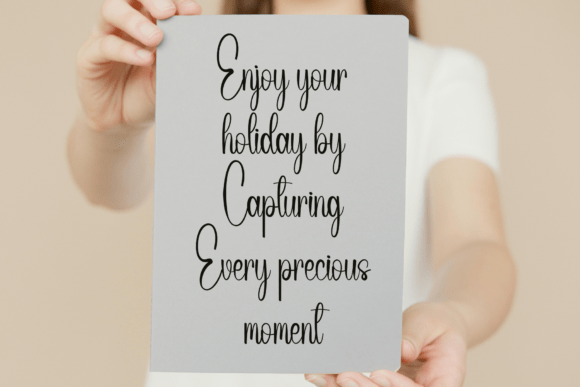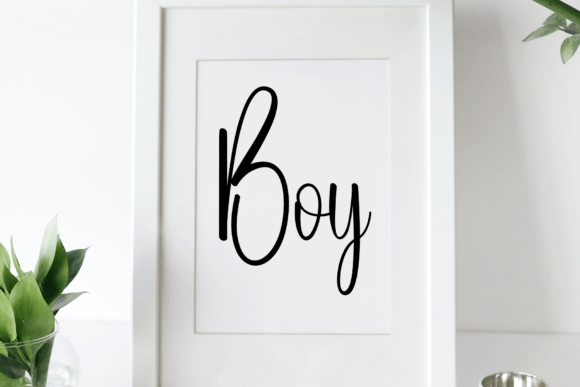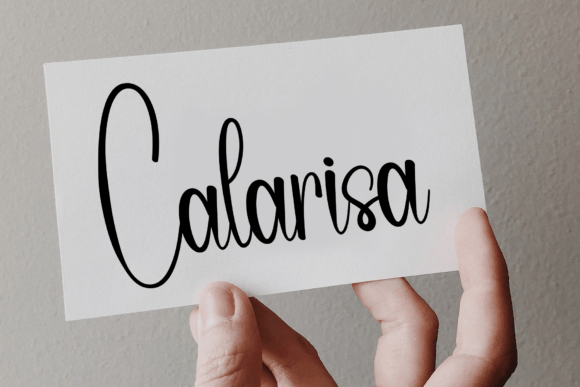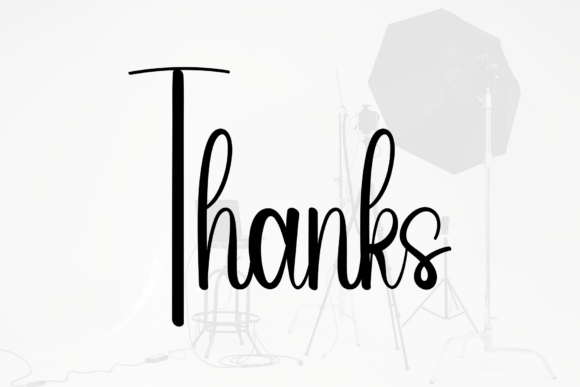
Discover the Perfect Script for Your Next Design Project
As a designer, you’ve probably found yourself staring at a blank canvas, searching for the perfect font to bring your vision to life. It’s that moment of frustration and excitement when you stumble upon something that just feels right. For me, it was the discovery of the Beautyfuly Font – a charming handwritten script that instantly captured my heart.
Beautyfuly Font is a masterfully crafted typeface designed to evoke a sense of heartfelt perfection. Its smooth strokes and organic lines create a relaxed atmosphere, making it perfect for a variety of design projects. Whether you’re creating a brand identity, crafting an invitation, or designing social media graphics, Beautyfuly Font is an invaluable addition to your toolkit.
Beautyfuly Font Key Features
- Unique Characteristics: The font features a unique blend of modern and elegant design elements, with intricate details and subtle flair, making it perfect for creative and luxury branding.
Designer Review: Beautyfuly Font
Beautyfuly Font is an interesting font that combines modern and classic elements. Here’s my honest review of this font.
- Unique style: Beautyfuly Font stands out from other fonts due to its unique blend of modern and classic elements.
- Good legibility: The font is easy to read, even at smaller font sizes.
- Limited font sizes: Beautyfuly Font may not be suitable for very large font sizes, as it can become difficult to read.
- May not be ideal for sans-serif designs: While Beautyfuly Font has a modern feel, it may not be the best choice for sans-serif designs that require a clean, minimalist look.
Beautyfuly Font is a great choice for designers who want to add a touch of elegance and sophistication to their designs. While it has some limitations, it’s a versatile font that can be used in a variety of contexts. Overall, I’d recommend Beautyfuly Font for designers who want to add a unique twist to their work.
Beautyfuly Font: A Practical Application Guide
Tips for Getting the Most Out of Beautyfuly Font
Here are some tips for getting the most out of Beautyfuly Font:
- Experiment with different font sizes and styles to create visually appealing text.
- Combine Beautyfuly Font with other fonts to create a unique and interesting design.
- Use Beautyfuly Font for headings and titles to draw attention to important information.
Beautyfuly Font is perfect for:
- Designing creative and eye-catching headings and titles.
- Creating unique and interesting text effects.
- Adding a touch of elegance and sophistication
Alex Brush is a beautiful, elegant script font perfect for creative and artistic projects. It is ideal for use in titles, headings, and any other text that requires a touch of sophistication. Alex Brush is similar to Beautyfuly Font in its elegant and refined feel, but it has a more delicate and cursive style.
Playfair Display is a luxurious, high-end font perfect for use in high-end projects, such as luxury branding and advertising. It is ideal for use in titles, headings, and any other text that requires a touch of elegance and sophistication. Playfair Display is similar to Beautyfuly Font in its elegant feel, but it has a more formal and classic style.